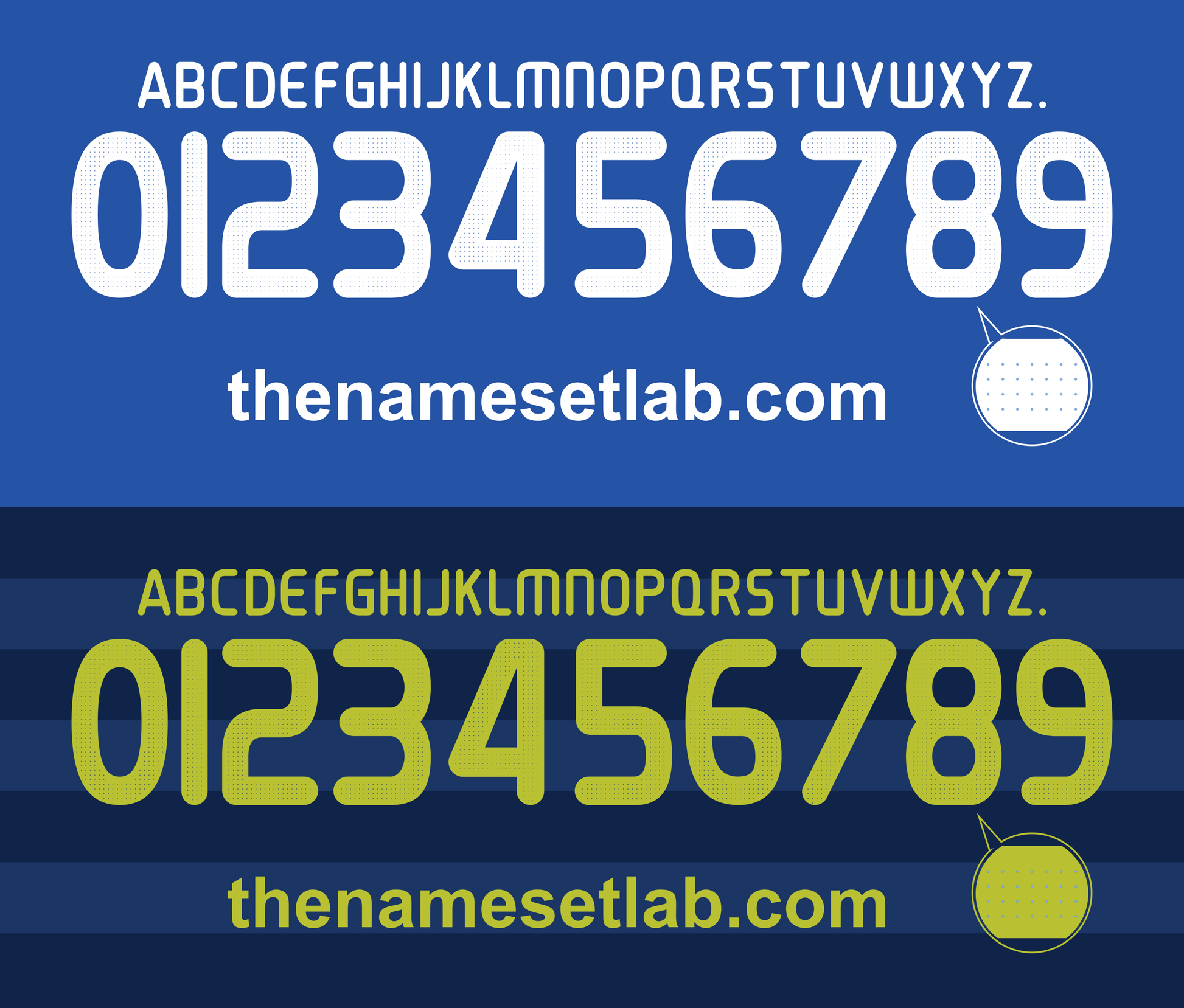
Download this Chelsea 2009-2010 UCL / Cup nameset as an editable .ai vector file. Featuring the Chelsea 09/10 font style, it's perfect for recreating Champions League or cup shirts, crafting personal projects, or expanding your vintage football design library.